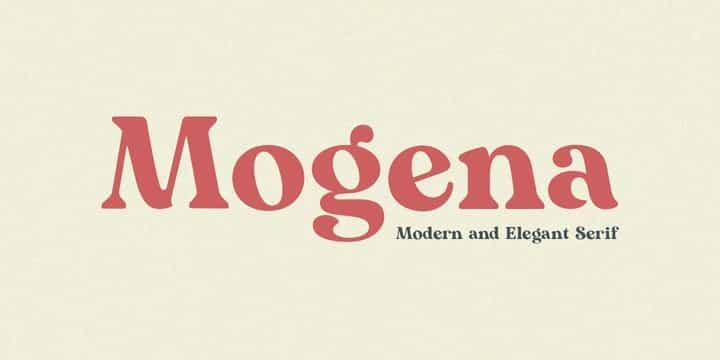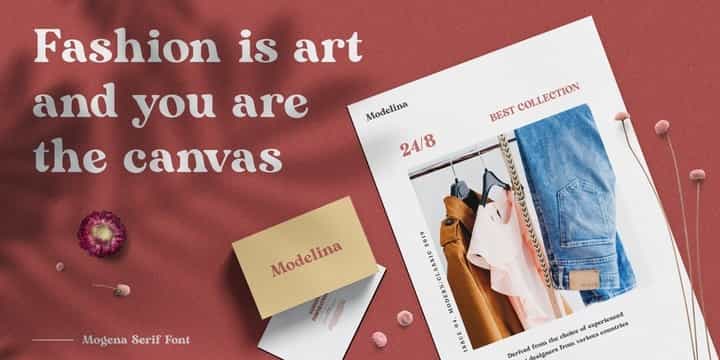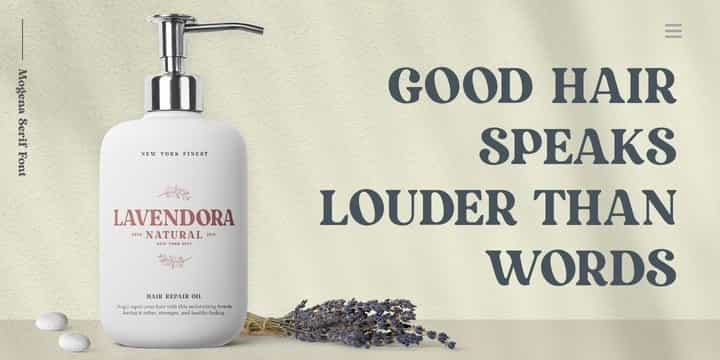
Mogena is a versatile modern serif font. It has a distinct and different appearance and will add a friendly and expressive touch to your design. Mogena is perfect for many different projects such as logos and branding, invitation, stationery, wedding designs, social media posts, advertisements, product packaging, product designs, label, photography, watermark, special events or anything.